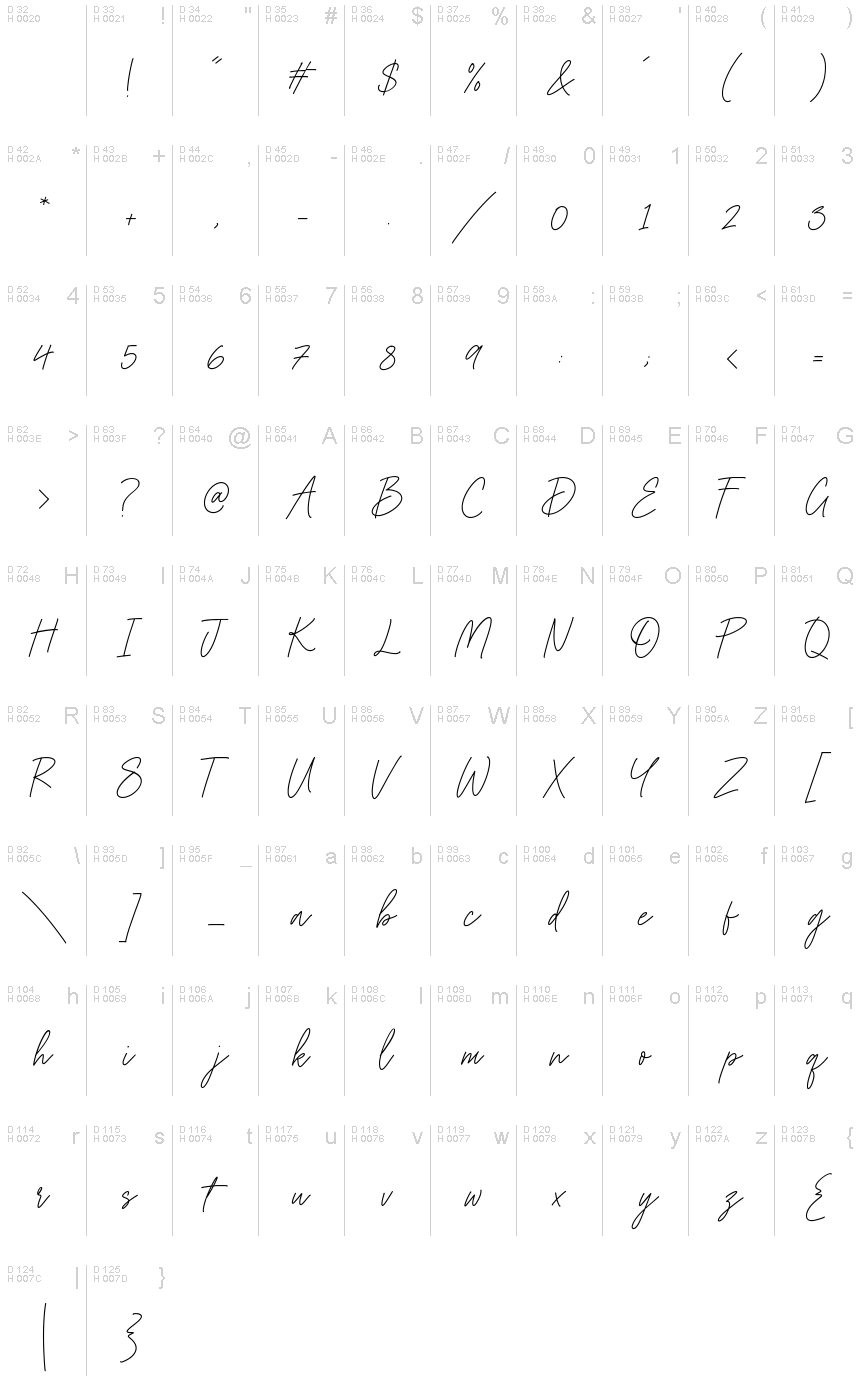
Bastonica
Bastonica font, crafted by Letterative Studio, exudes a charming handwritten elegance reminiscent of personal signatures. Its gently flowing lines and light composition create an airy feel, inviting a sense of warmth and authenticity. The cursive style, paired with playful flourishes, allows for effortless readability while maintaining artistic flair.
Ideal for branding projects, invitations, or any design aimed at conveying intimacy and creativity, Bastonica breathes life into text. Whether used in a stylish logo or on a heartfelt greeting card, this font captures the essence of personal touch and artistry. Its unique character ensures that every application stands out with a distinctive voice that resonates deeply with audiences.